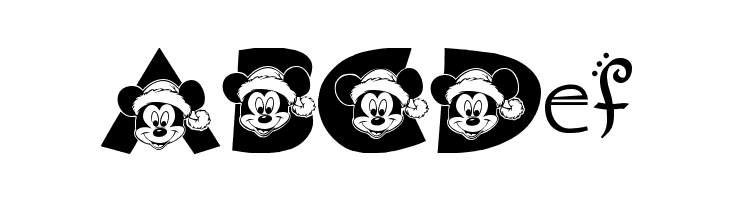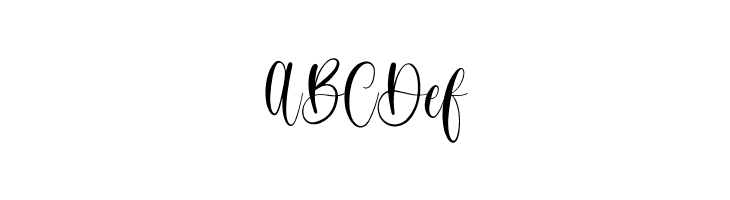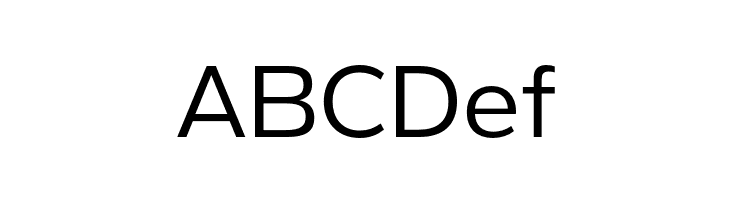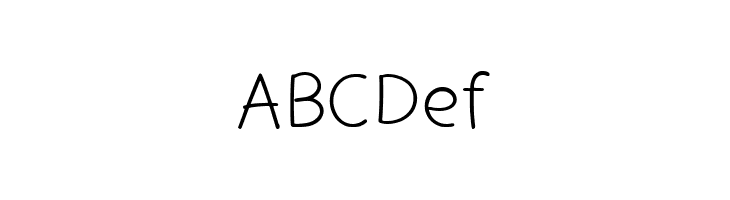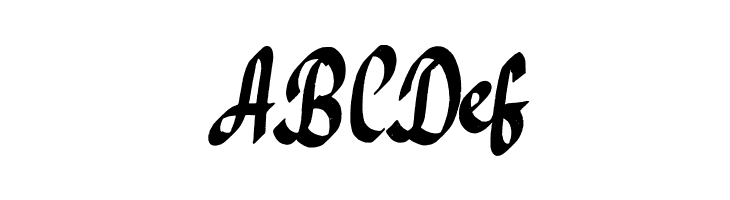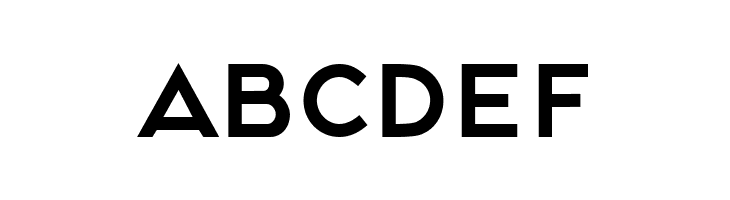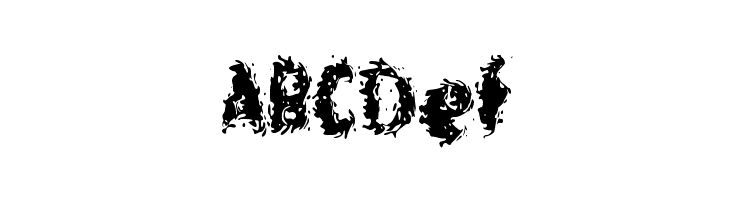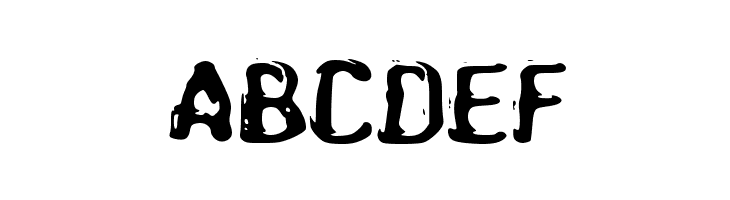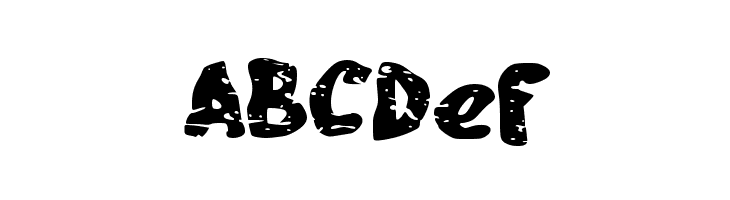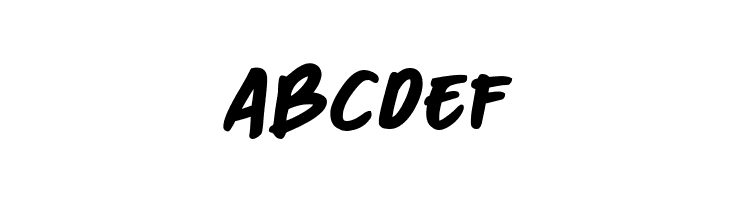
• Cebigej
A bold, dynamic script font with a calligraphic style.
• Cebur
A chaotic, splatter-inspired decorative font with irregular, jagged edges.
• Cecek Sapi
A bold, distressed font with a rough, textured appearance.
• Cecep's Handwriting
A bold, playful handwritten font with smooth, rounded characters.
• CECILE
A playful, casual handwritten font with irregular strokes and a spontaneous feel.
• CECILE
A futuristic, geometric font with angular lines and sharp edges.
• Cecilia
Casual handwritten script font.
• Cecilia Free Version
A fluid and elegant handwritten font with smooth curves and flowing lines.
• Cecilia Script
An elegant, flowing script font with intricate loops and swirls.
• Cecilia Script Regular
An elegant and flowing script font with intricate loops and flourishes.
• Cecily
A playful, rounded font with smooth curves and a friendly appearance.
• Cedarville Cursive
A lively cursive font with smooth, flowing strokes and a playful, elegant style.
• Cedarville Pnkfun 1 Print
A playful, casual handwritten font with irregular strokes and a lively feel.
• Cedarville Pnkfun1 Cursive
A playful, casual cursive font with a smooth, handwritten style.
• CEDRICdemo
A bold, condensed font with high contrast and a modern geometric style.
• Cegah Covid
A bold, hand-painted style font with dynamic, irregular strokes.
• Cekerayam
A playful handwritten font with rounded, consistent strokes and a casual feel.
• Celbobold
A bold, slightly italic font with a modern and dynamic style.
• Celboexbold
A bold, slightly italicized font with dynamic strokes and modern appeal.
• Celboregular